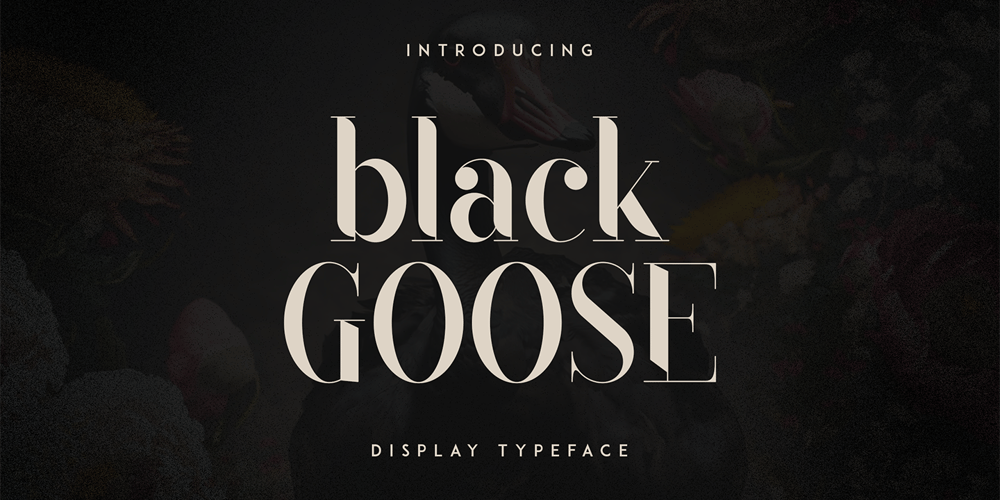
Black Goose Font Family was designed by Vladimir Fedotov, Plamen Petrov and published by VP Creative Shop. Black Goose contains 5 styles and family package options. Black Goose is a display typeface with regular, cut, styled, rounded, and reversed font styles. It adds elegance, modernity, playfulness, approachability, and intrigue to your designs. Supporting 87 languages, it ensures effective communication across diverse audiences.If you’re looking for a more edgy and contemporary vibe, the cut style of Black Goose will be perfect for you. With its sharp angles and distinct cuts, it adds a bold and modern twist to your designs, making them stand out from the crowd.For those seeking a touch of playfulness and uniqueness, the styled variant of Black Goose offers decorative elements that enhance the overall design. It brings a sense of whimsy and creativity to your projects, making them visually captivating and memorable.Language Support : Afrikaans, Albanian, Asu, Basque, Bemba, Bena, Breton, Chiga, Colognian, Cornish, Czech, Danish, Dutch, Embu, English, Estonian, Faroese, Filipino, Finnish, French, Friulian, Galician, Ganda, German, Gusi,i Hungarian, Indonesian, Irish, Italian, Jola-Fonyi, Kabuverdianu, Kalenjin, Kamba, Kikuyu, Kinyarwanda, Latvian, Lithuanian, Lower Sorbian, Luo, Luxembourgish, Luyia, Machame, Makhuwa-Meetto, Makonde, Malagasy, Maltese, Manx, Meru, Morisyen, North Ndebele, Norwegian, Bokmål, Norwegian, Nynorsk, Nyankole, Oromo, Polish, Portuguese, Quechua, Romanian, Romansh, Rombo, Rundi, Rwa, Samburu, Sango, Sangu, Scottish, Gaelic, Sena, Shambala, Shona, Slovak, Soga, Somali, Spanish, Swahili, Swedish, Swiss, German, Taita, Teso, Turkish, Upper, Sorbian, Uzbek (Latin), Volapük, Vunjo, Walser, Welsh, Western Frisian, ZuluMock ups and backgrounds used are not included.Thank you! Enjoy!